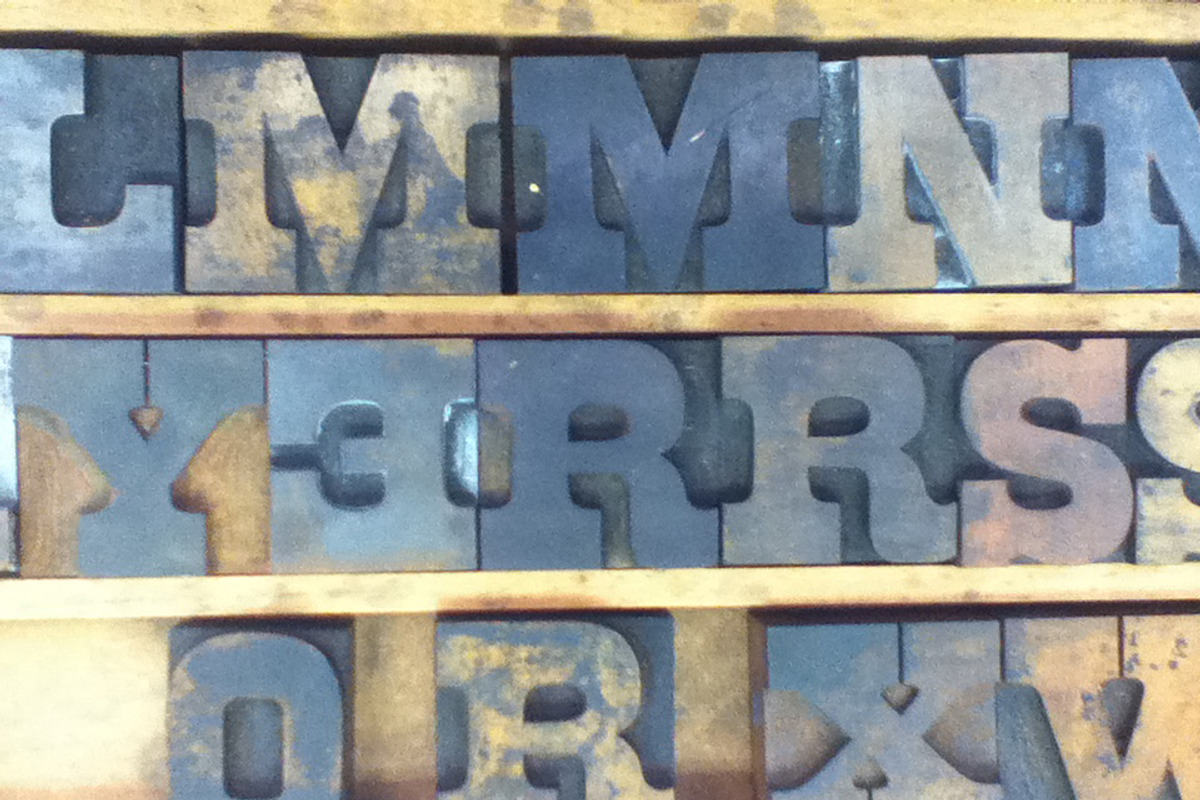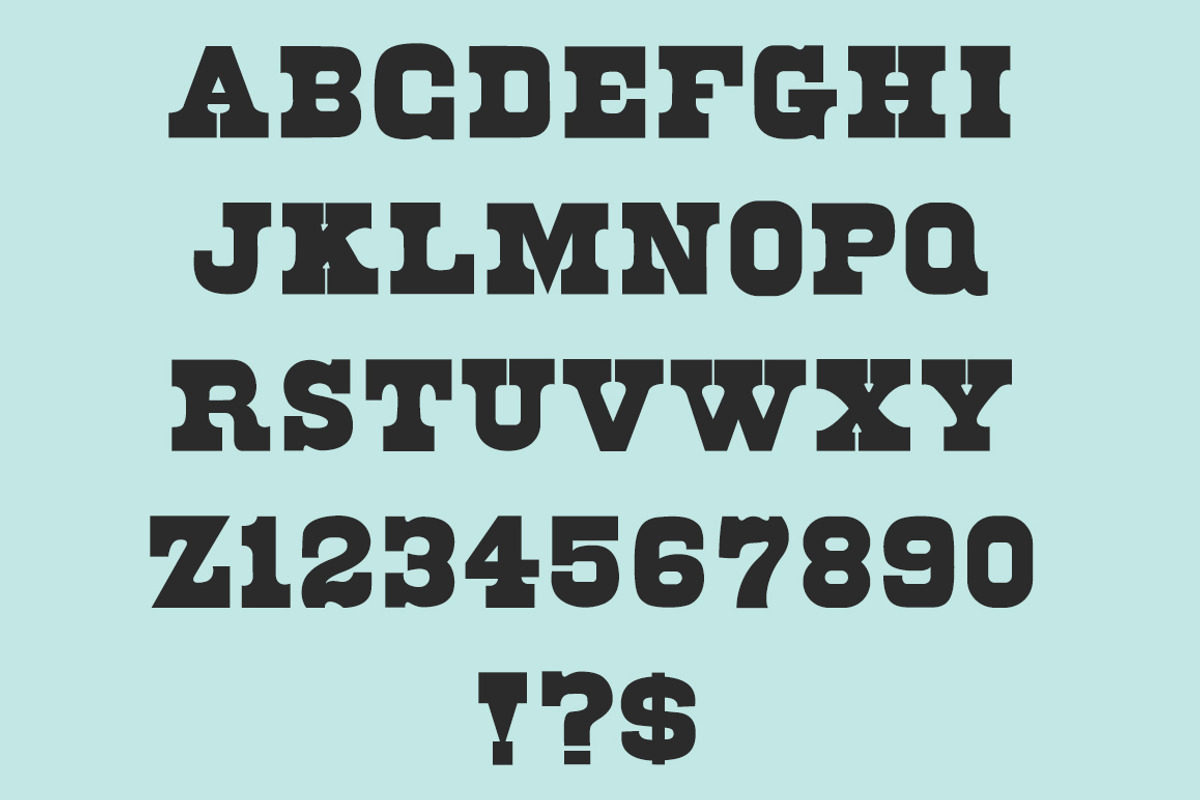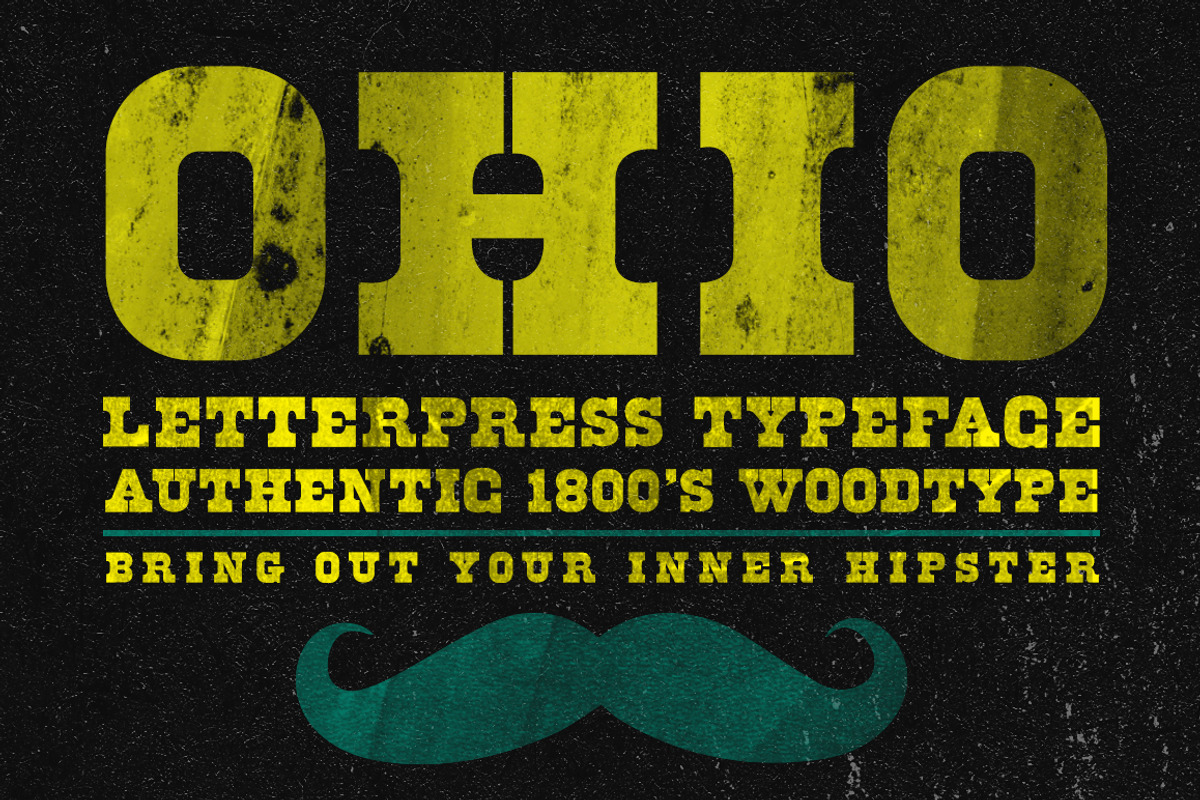
Ohio - Wood Type Typeface
Ohio - Wood Type Typeface by The Warehouse is a font selected for branding, posters, packaging, typography.
- Authentic re-creation of 1800's letterpress era wood type
- All letters, numbers and several glyphs included
- Perfect for large display type in print or web
Ohio - Wood Type Typeface by The Warehouse fits naturally into Branding, posters, packaging, typography.